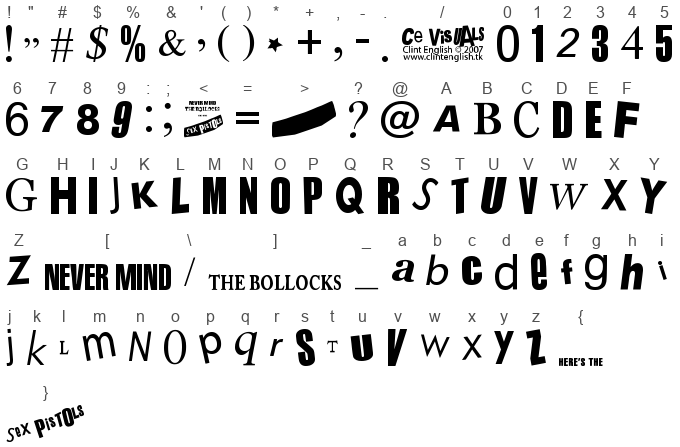
The Sex Pistols font captures the raw energy and rebellious spirit of the punk rock movement, much like the iconic band it's named after. This typeface is more than just a collection of letters; it embodies the anarchic, do-it-yourself ethos of the punk genre that exploded onto the scene in the late 1970s, with the Sex Pistols at the forefront.
Visually, the Sex Pistols font is rugged, edgy, and unapologetically bold. It often features irregularities and imperfections that mimic the hastily crafted flyers, zines, and album covers of the punk rock era. These characteristics convey a sense of urgency and defiance, as if the font itself is rebelling against the clean lines and perfection of traditional typography. The letters might be slightly askew, with varied line weights, and sometimes they're paired with gritty textures or patterns that enhance their rebellious vibe.
What makes the Sex Pistols font so distinctive is not just its aesthetic qualities, but the attitude it represents. It's a visual scream of dissent, an emblem of anti-establishment sentiments, capturing the essence of a band that refused to conform to societal expectations. Using this font in a design project instantly infuses it with a raw, punk rock energy, making it ideal for materials that aim to stand out from the crowd, challenge the status quo, or celebrate the history and legacy of punk culture.
In essence, the Sex Pistols font is more than just typographic design; it's a historical artifact that continues to inspire graphic designers, artists, and rebels. It serves as a reminder of a time when music, fashion, and art converged to make a powerful statement against the mainstream, and it remains a potent symbol for those looking to capture a bit of that revolutionary spirit in their own creative projects.
Sex Pistols